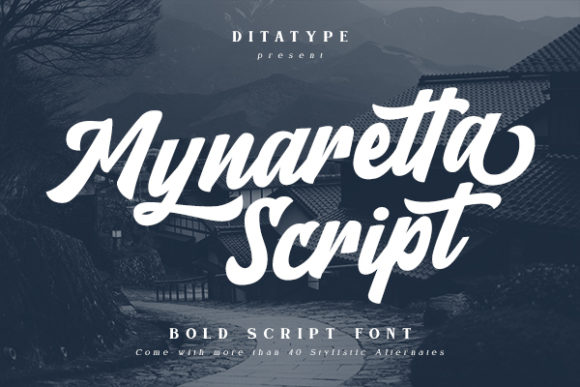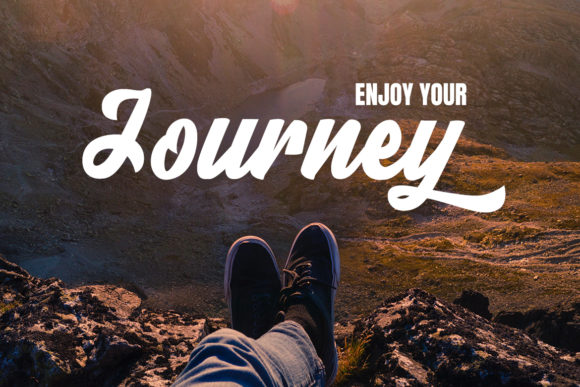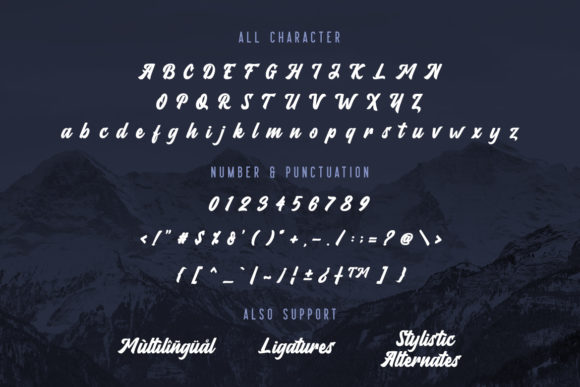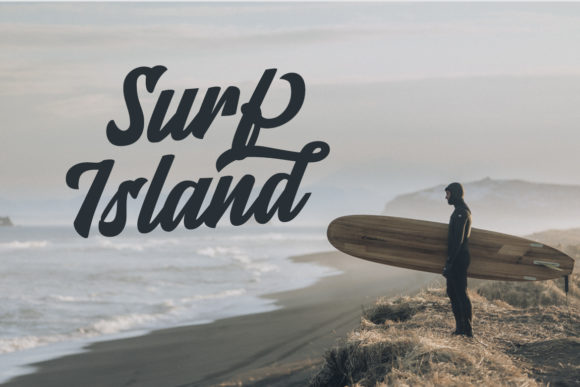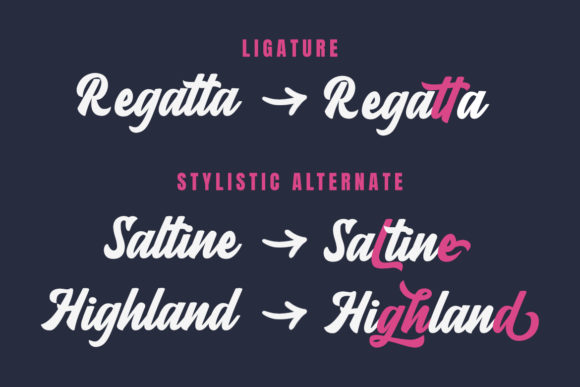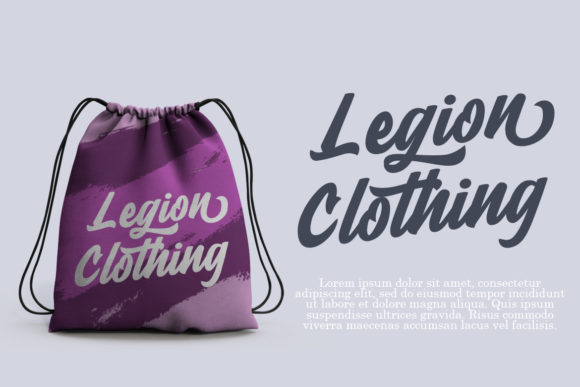
Mynaretta Font
About Mynaretta Font
Mynaretta is a gorgeous handwritten font made with the help of a brush pen. This font is PUA encoded which means you can access all of the glyphs and swashes with ease! It features a varying baseline, smooth lines, gorgeous glyphs and stunning alternates.
Mynaretta looks stunning on wedding invitations, thank you cards, quotes, greeting cards, logos, business cards and every other design which needs a handwritten touch.